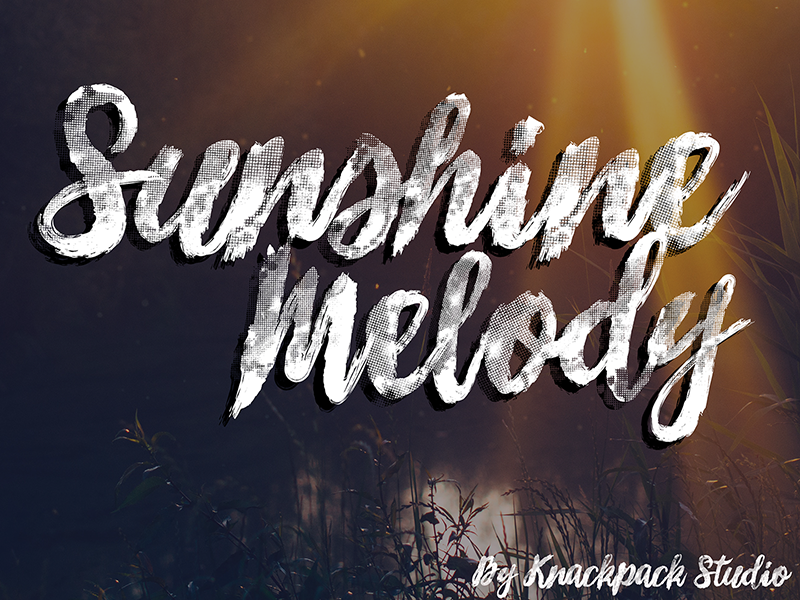
Sunshine Melody Brush
Sunshine Melody Brush Font
– SUNSHINE MELODY –
A Brand New brush-Script font perfect for any artwork with grunge textures effects.